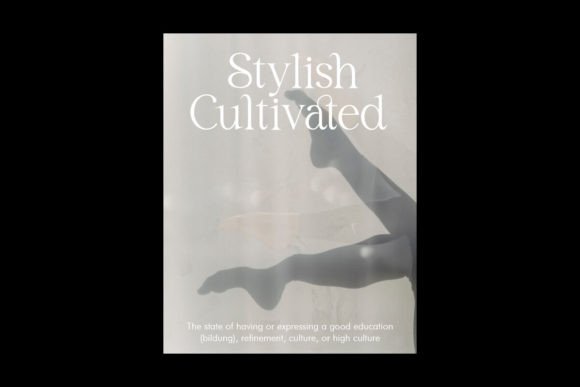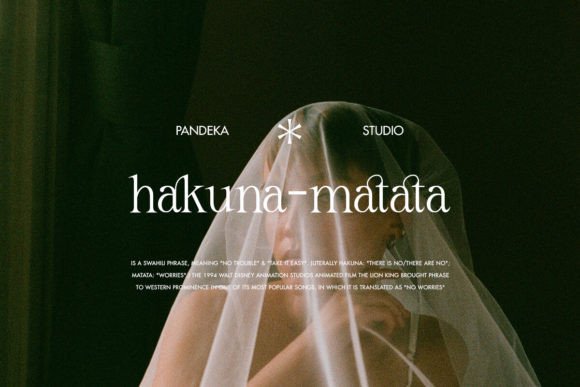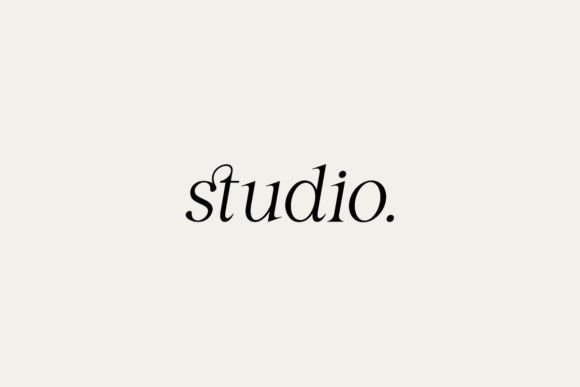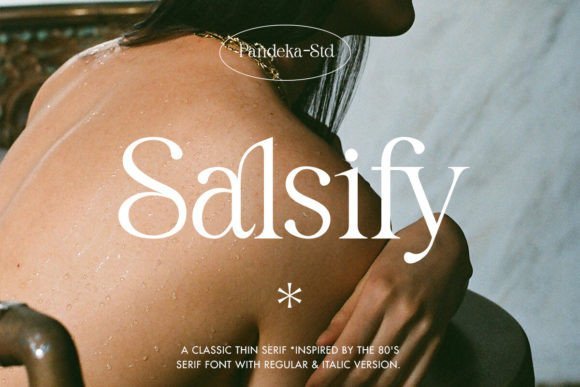
Introduction to Salsify Font
Say hello to the new classic thin serif, Salsify.
Salsify – A stunningly crisp upper and lowercase typeface that looks incredible in both large settings as a display text Perfect for fashion work, magazines, or just a classy logo design.
Key Features of Salsify Font
Why Choose Salsify Font?